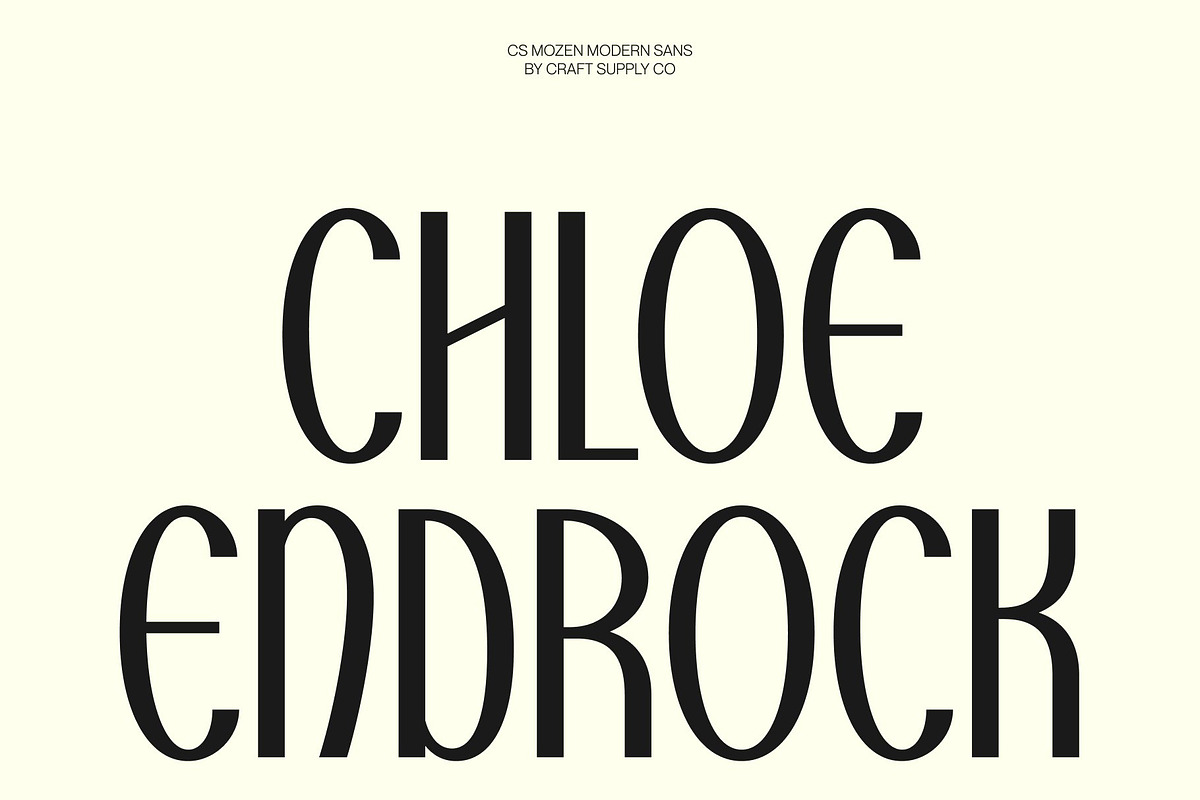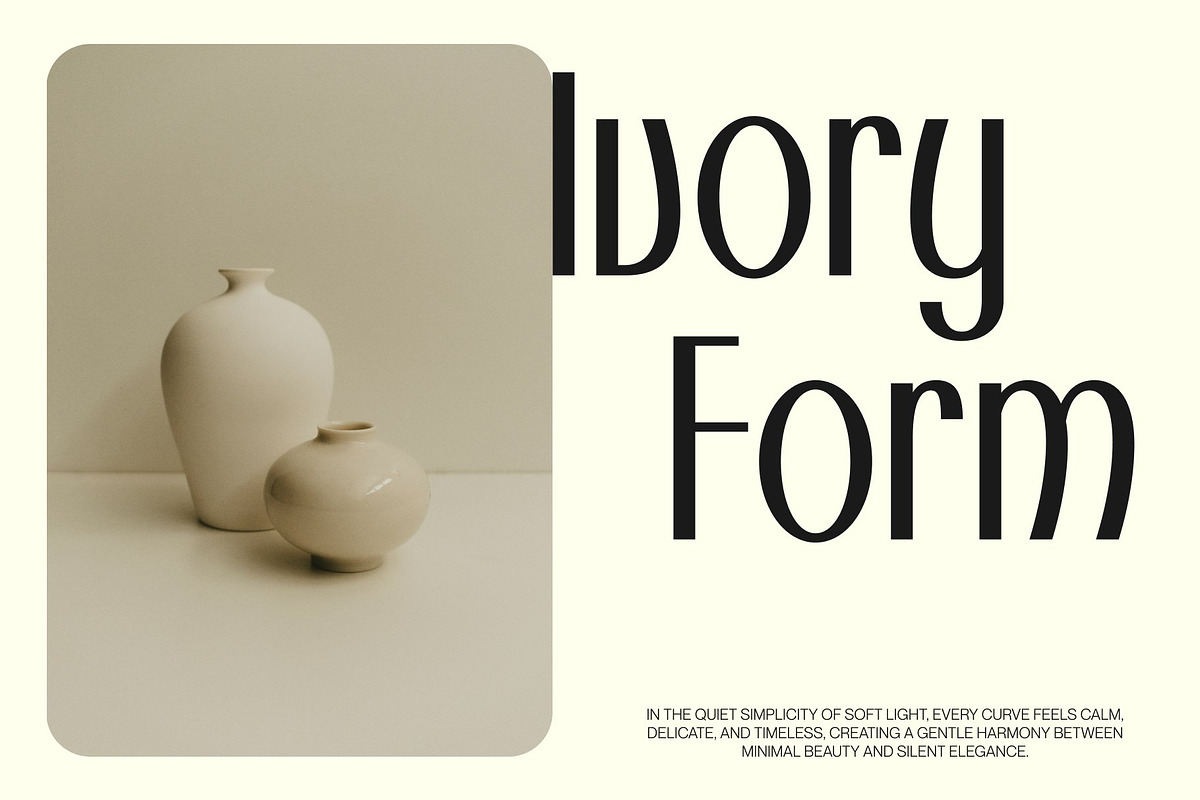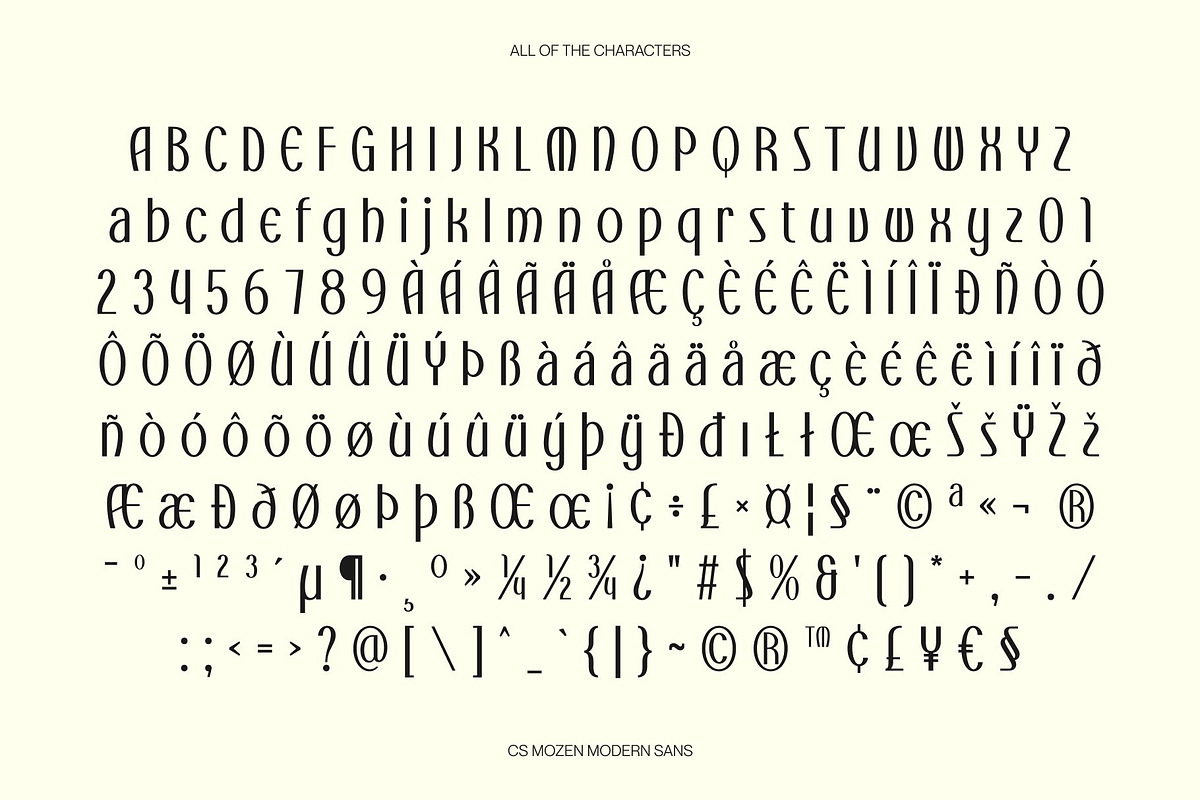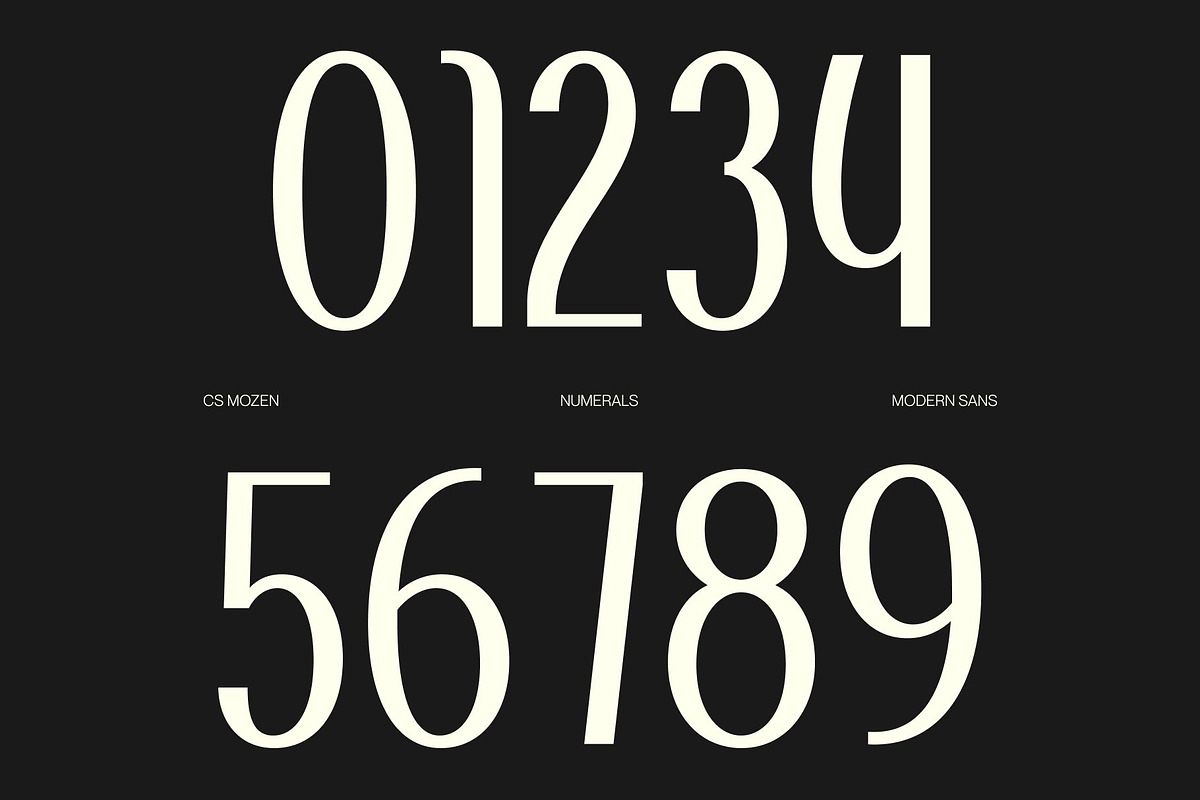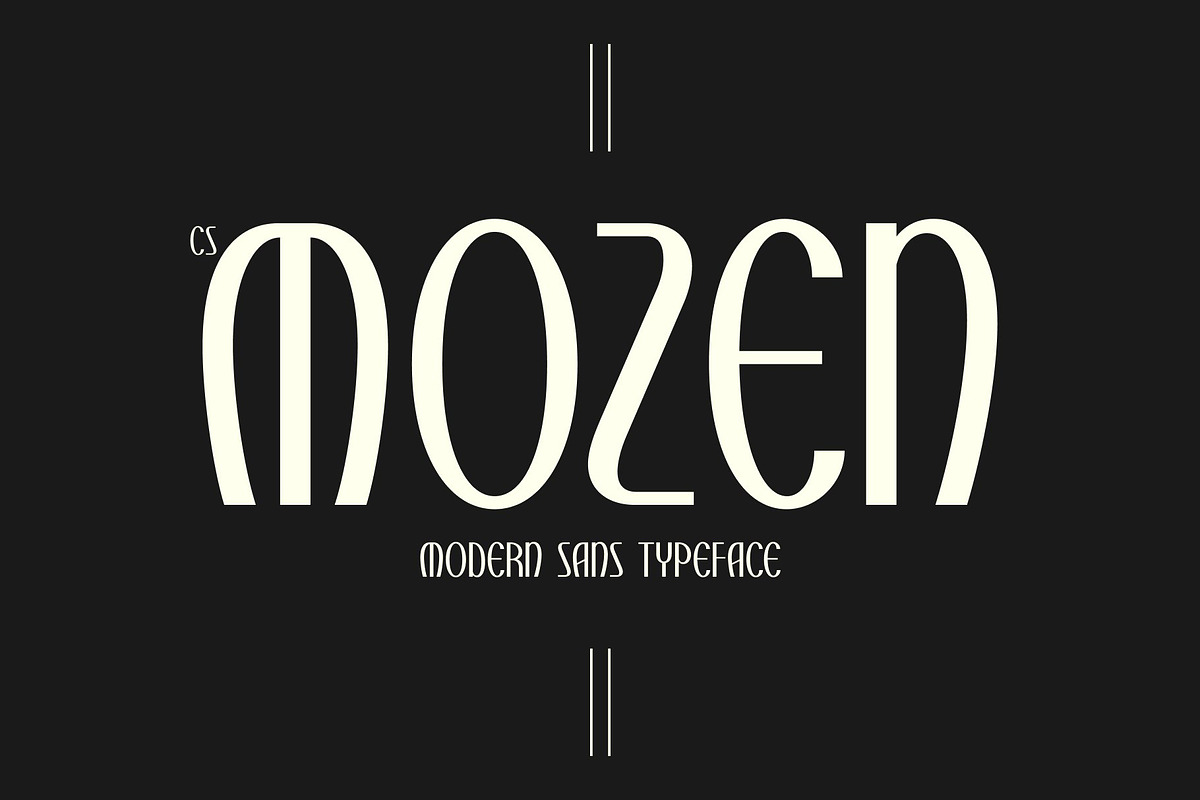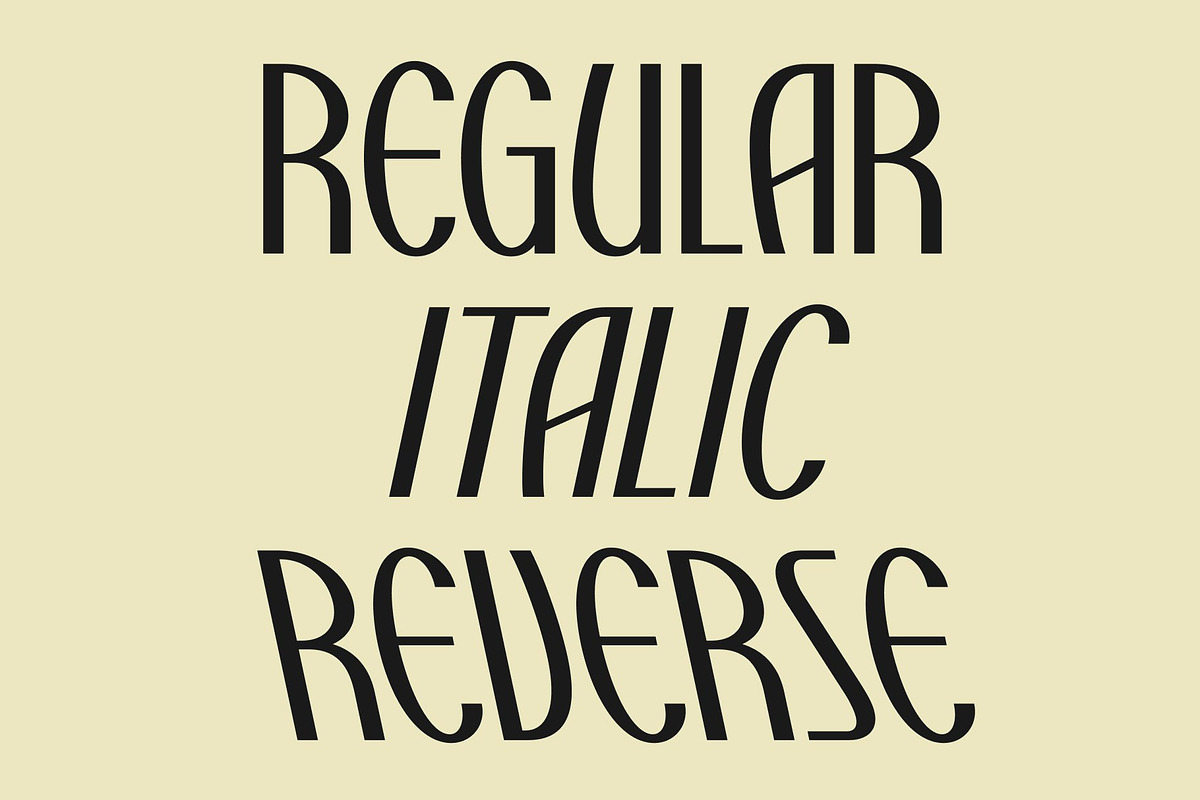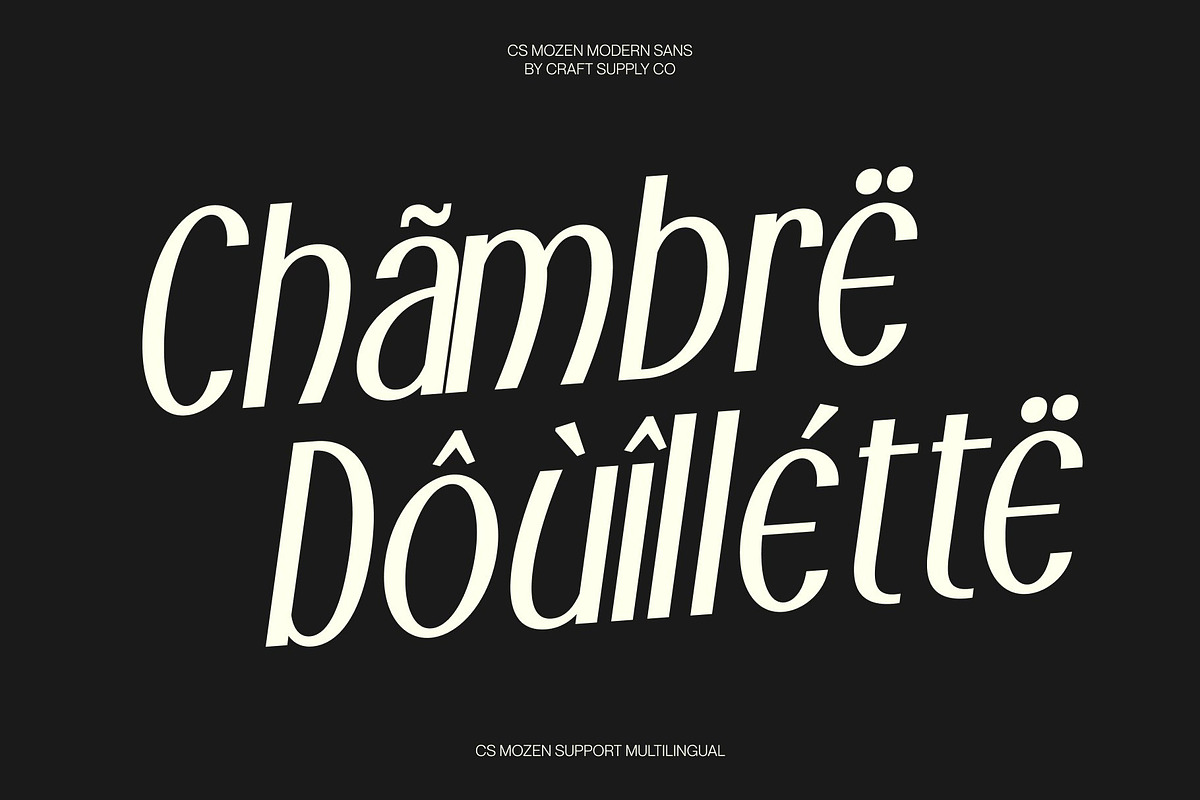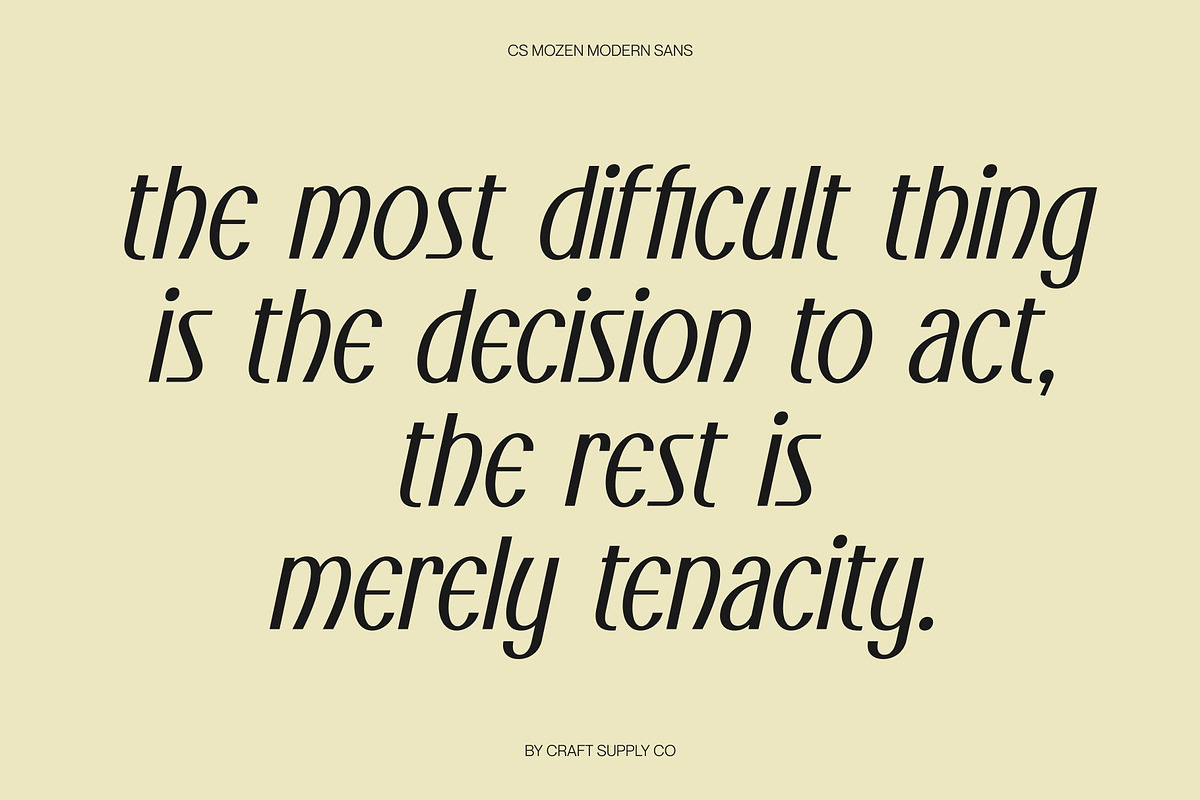
CS Mozen – Modern Sans Serif
CS Mozen – Modern Sans Serif with Decorative Elegance
Modern Sans Serif with Fresh Contemporary Style This is a modern sans serif font that blends freshness and beauty with a refined contemporary touch. Combining decorative charm with classic inspiration, this typeface creates a balanced and stylish visual identity that feels both elegant and current. It is crafted for designers who want typography that feels sophisticated, versatile, and visually engaging.
Decorative Details with Modern Clarity The font features subtle decorative influences that enhance its character without compromising clarity. Smooth curves and carefully balanced proportions create a harmonious rhythm across text, giving each composition a polished and expressive appearance. This thoughtful design ensures this font feels artistic while remaining highly readable.
Classic Influence with Contemporary Balance This font merges timeless typographic elements with modern simplicity, resulting in a font that feels refined and adaptable. Its clean structure allows it to perform beautifully across both print and digital applications, while its decorative qualities add a sense of personality and elegance.
Perfect for Editorials, Packaging, and Branding From advanced book design and editorial layouts to luxury packaging and branding systems, this font provides a versatile typographic solution. Its combination of decorative beauty, classic refinement, and modern clarity ensures your designs feel fresh, elegant, and professionally crafted.